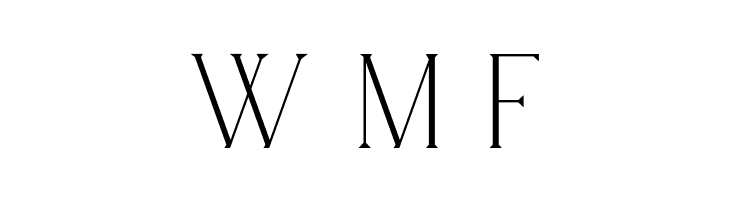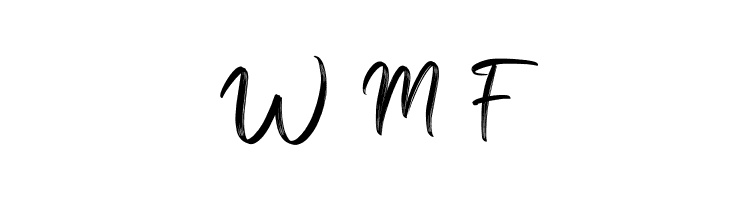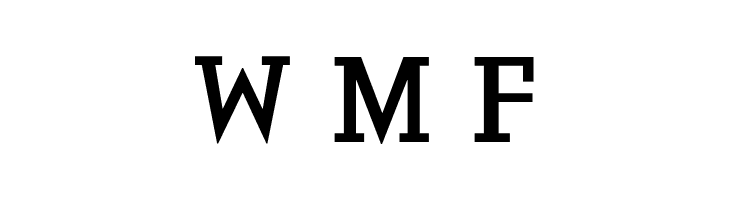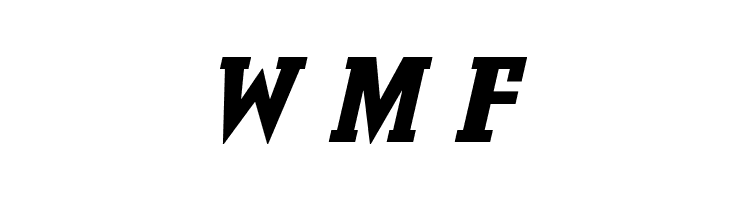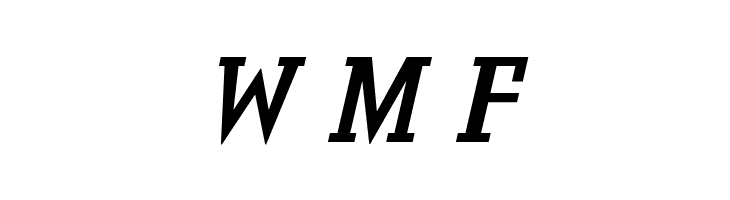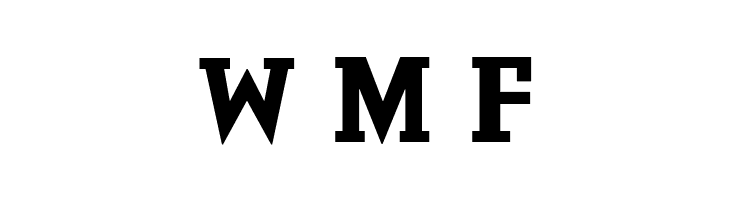
A modern, elegant font with slender letterforms and high contrast strokes.
A modern serif typeface with bold strokes and slightly condensed letterforms.
A bold, italic serif font with a modern yet classic appeal.
Elegant serif font with an italic slant and moderate contrast.
A bold serif font with strong strokes and pronounced serifs, ideal for impactful designs.
A modern serif font with elegant, elongated letterforms and moderate contrast.
A bold, expressive handwritten font with fluid and dynamic strokes.
A dynamic, brush-style font with expressive, fluid strokes.